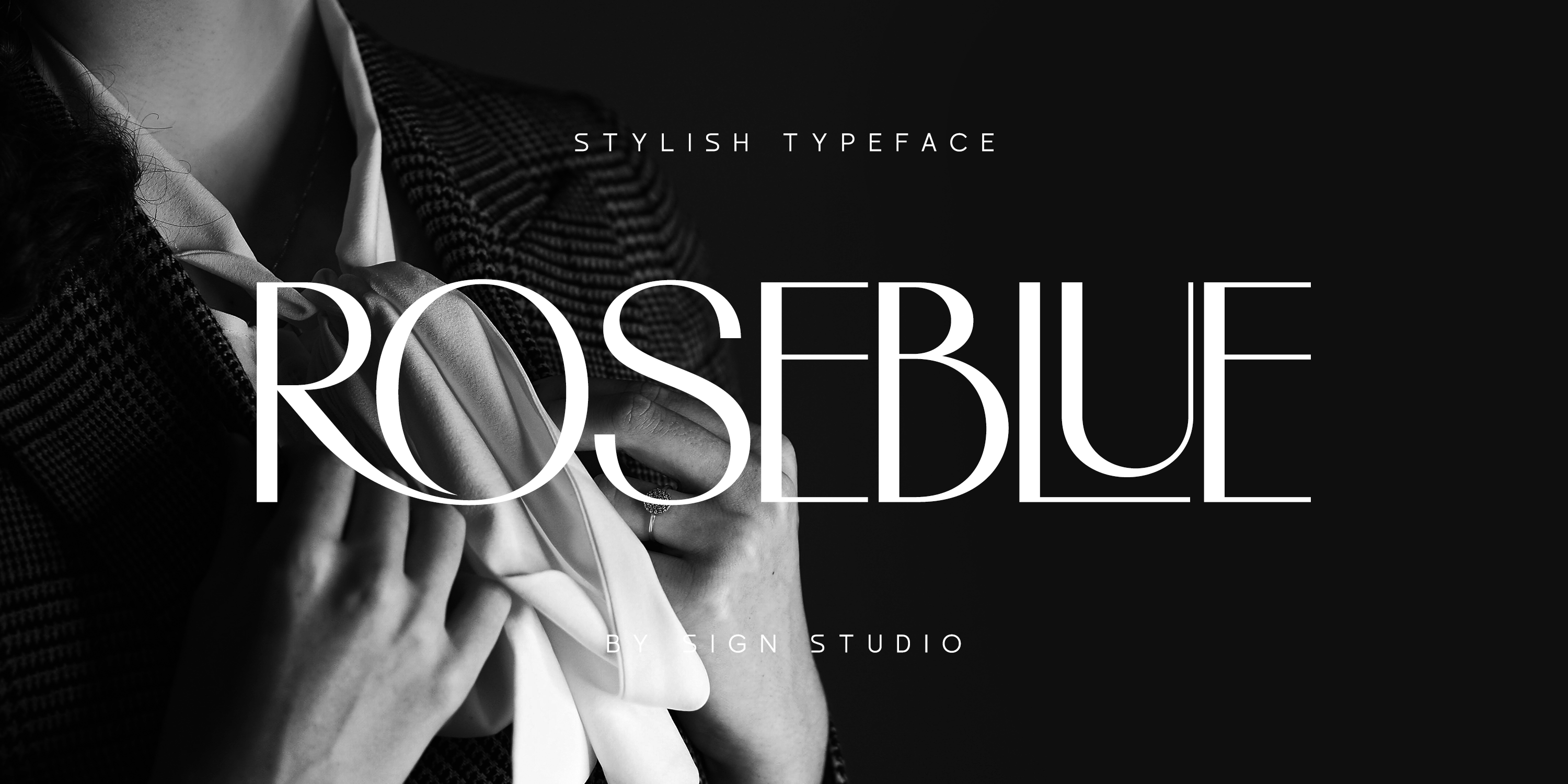
Roseblue Font excels in romantic wedding invitations, elegant beauty product packaging, sophisticated floral boutique branding, dreamy children's book covers, feminine fashion campaigns, delicate jewelry catalogs, enchanting spa and wellness materials, romantic greeting cards, whimsical baby shower invitations, and charming lifestyle blog headers.
Roseblue Font is exciting because it captures the ethereal beauty of blooming roses and serene blue skies through its gracefully curved letterforms that dance with romantic elegance and feminine charm, creating an instant emotional connection that speaks to the heart. This enchanting typeface embodies the perfect harmony between delicate sophistication and dreamy romance, making it an essential tool for designers seeking to create communications that celebrate beauty, love, and the gentle magic of life's most precious moments.
The Roseblue Font family includes a romantic collection featuring Regular, Bold, Light, Script variations, Decorative styles, Ornamental elements, Swash characters, Italic versions, Condensed formats, and delicate flourishes, providing complete design flexibility for any romantic or feminine creative project.
Roseblue Font represents the pinnacle of romantic typography, delivering unparalleled elegance for projects that celebrate love, beauty, and feminine grace. Its distinctive flowing character structure makes it particularly effective for brands seeking to establish an emotional connection with audiences who appreciate romance, elegance, and artistic beauty.
The enchanting appeal of Roseblue Font makes it ideal for bridal boutiques, luxury beauty brands, romantic event planners, feminine lifestyle companies, artisanal flower shops, and creative studios specializing in romantic and feminine design aesthetics. Its graceful letterforms ensure memorable brand recognition among romantic and beauty-conscious audiences.
Creative professionals recognize how Roseblue Font Free Download provides instant access to premium romantic typography that transforms ordinary designs into extraordinary expressions of love and feminine elegance. The font's comprehensive character set supports diverse romantic applications while maintaining its distinctive dreamy appeal.
Roseblue Font's advanced features include elegant swashes, contextual alternates, romantic ligatures, and decorative flourishes that enhance the font's enchanting character. These feminine elements enable designers to create compelling layouts that resonate with romantic audiences and beauty enthusiasts.
The versatility of Roseblue Font extends gracefully across traditional and digital platforms, proving equally effective for romantic websites, feminine mobile applications, beauty social media campaigns, wedding photography portfolios, and lifestyle digital publications. Its scalable design maintains delicate beauty at any size.
For design professionals creating for romantic occasions, Roseblue Font delivers the perfect combination of feminine grace and professional functionality. Its romantic appeal combined with technical excellence makes it an indispensable resource for creating memorable visual communications that capture the timeless beauty of romance and the gentle elegance of feminine design in today's beauty-conscious marketplace.